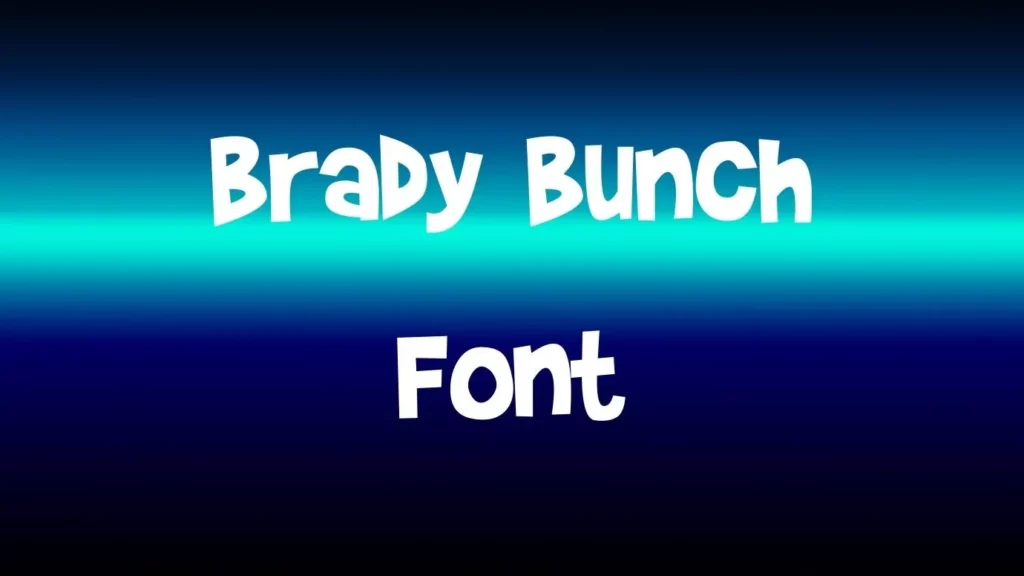
This breathtaking font was designed by one famous designer Adam Nerland. He created this font so elegantly and passionately. It was published by the famous
Today we are going to introduce you to a very attractive and eye-catchy logo-based typeface Brady Bunch Font. It belongs to a fancy category that has spectacular characters and imposing styles. It has great fame due to it being inspired by the famous movies Brady Bunch movies. It was released in 1969 and within no time it got famous all around the world especially it has a great name among children.
This breathtaking font was designed by one famous designer Adam Nerland. He created this font so elegantly and passionately. It was published by the famous foundry Insanitype foundry in 2001. After it was released this typeface got popular within no time.
It is a comic typeface that has a fundamental appearance and bold texture. This font has noticeable characters and imposing glyphs. It has great boldness that is available in capital letters, small letters, symbols, icons, punctuation, and numbers.
This font is a logo-based typeface that is categorized into fancy style. It has great features and defined characters.
This breathtaking font was designed by one famous designer Adam Nerland. He created this font so elegantly and passionately.